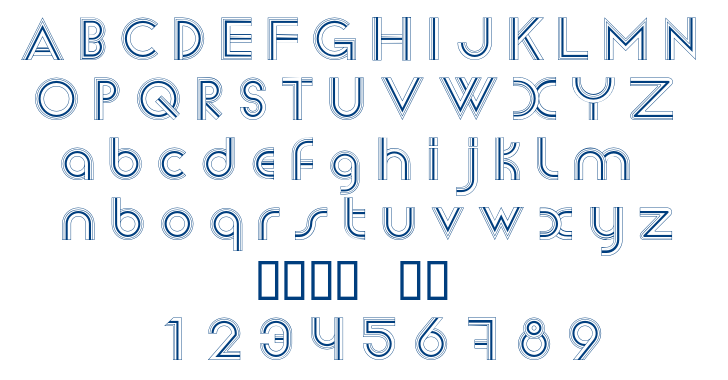
Tiny Small Medium Large Newsense font takuminokami Website Newsense.otf Download 3145 downloads Attribution Non-Commercial No Derivatives CC BY-NC-ND Category: Fancy » Groovy Font based on Milton Glaser’s Filmsense poster typography. Character Map specimen sheet